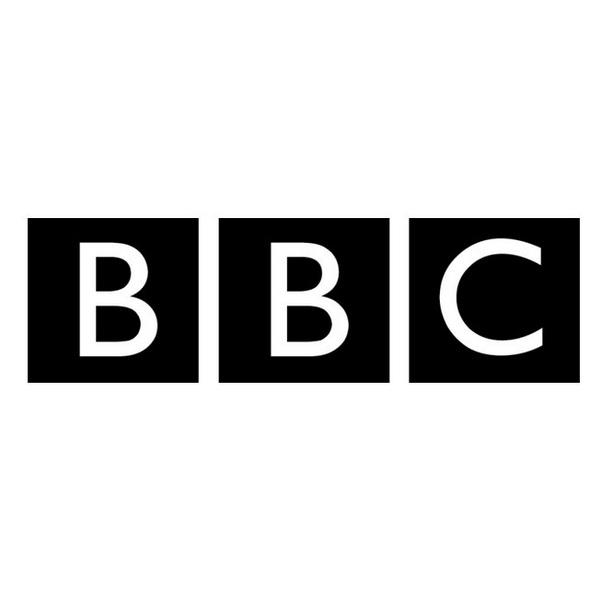
BBC Font
EntertainmentBBC (British Broadcasting Corporation) is a public service broadcaster headquartered in the UK. It operates a variety of television, radio, and online channels, producing news, entertainment, and educational content for audiences in the UK and around the world.
BBC's logo has undergone several changes since its inception. The first version, the coat of arms, was later replaced by the famous block logo in 1958. In 1997, Lambie Nairn redesigned the logo into three blocks, each containing a letter, with a non-slanted font that resembles Gill Sans Std, a commercial font that can be purchased and downloaded here.